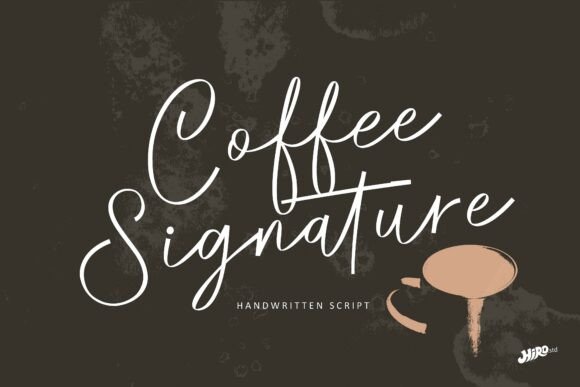
Coffee Signature Font: Elevate Your Designs with Elegance and Sophistication
In the world of typography, a well-crafted font can make all the difference in elevating your design from ordinary to extraordinary. Introducing Coffee Signature, an elegant handwritten font that exudes style, sophistication, and a touch of casual charm. Inspired by fashion and modern femininity, this typeface is perfect for designers seeking a dynamic yet graceful handwritten feel.
What is Coffee Signature Font?
Coffee Signature is a beautifully crafted handwritten font that blends natural letter flow with stunning ligatures, creating a cohesive and effortlessly stylish text. Each character connects in perfect harmony, making it ideal for designs that require an authentic handwriting aesthetic. Whether you’re working on logotypes, wedding invitations, magazines, packaging, merchandise, quotes, or stationery, Coffee Signature offers both beauty and functionality.
Key Features of Coffee Signature Font
- Elegant Handwritten Style: Coffee Signature boasts a sophisticated and stylish handwritten look, perfect for designs that demand a touch of elegance.
- Natural Letter Flow: The font features a natural flow of letters, creating a sense of movement and fluidity.
- Beautiful Ligatures: With stunning ligatures, each character connects seamlessly, making your text look cohesive and stylish.
- Versatile: Suitable for a wide range of design projects, including logotypes, wedding invitations, magazines, packaging, merchandise, quotes, and stationery.
Inspiration and Design Philosophy
Coffee Signature is inspired by the world of fashion and modern femininity. The font’s design philosophy revolves around creating a dynamic yet graceful handwritten feel that blends effortlessly into various designs. The result is a typeface that exudes style, sophistication, and a touch of casual charm.
Use Cases for Coffee Signature Font
Coffee Signature is an incredibly versatile font, suitable for a wide range of design projects. Here are some use cases where this font truly shines:
- Logotypes: Create stunning logos that exude elegance and sophistication.
- Wedding Invitations: Add a touch of romance and whimsy to your wedding invitations.
- Magazines: Elevate your magazine designs with a sophisticated and stylish font.
- Packaging: Create eye-catching packaging designs that stand out on store shelves.
- Merchandise: Design stunning merchandise, such as t-shirts, mugs, and tote bags.
- Quotes: Add a touch of elegance to your quote designs.
- Stationery: Create beautiful stationery designs, including letterheads, envelopes, and notecards.
Benefits of Using Coffee Signature Font
By incorporating Coffee Signature into your design projects, you can enjoy numerous benefits, including:
- Unique and Memorable Designs: Stand out from the crowd with unique and memorable designs.
- Elegance and Sophistication: Add a touch of elegance and sophistication to your designs.
- Versatility: Use the font across various design projects, from logotypes to stationery.
In conclusion, Coffee Signature is an exceptional handwritten font that can elevate your designs to new heights. With its elegant style, natural letter flow, and beautiful ligatures, this font is perfect for designers seeking a dynamic yet graceful handwritten feel. Whether you’re working on logotypes, wedding invitations, or stationery, Coffee Signature offers both beauty and functionality. So why wait? Incorporate Coffee Signature into your design projects today and experience the power of elegant typography.